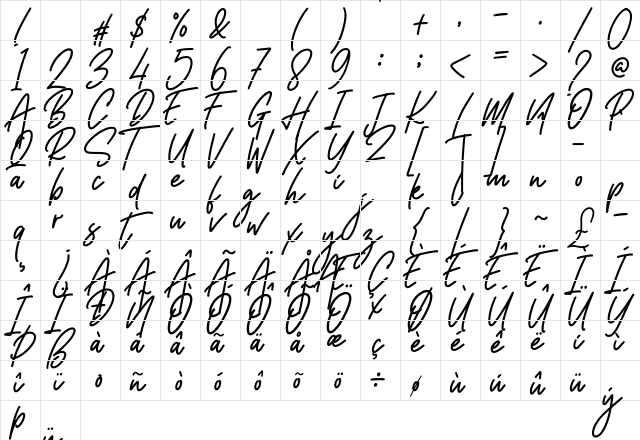
Montaseli Script
| Style | Script |
| Designer | Donis Miftahudin |
Design Context for Montaseli Typeface
Montaseli flows with the natural rhythm of handwritten lettering, making it ideal for designs that call for warmth and personal expression.